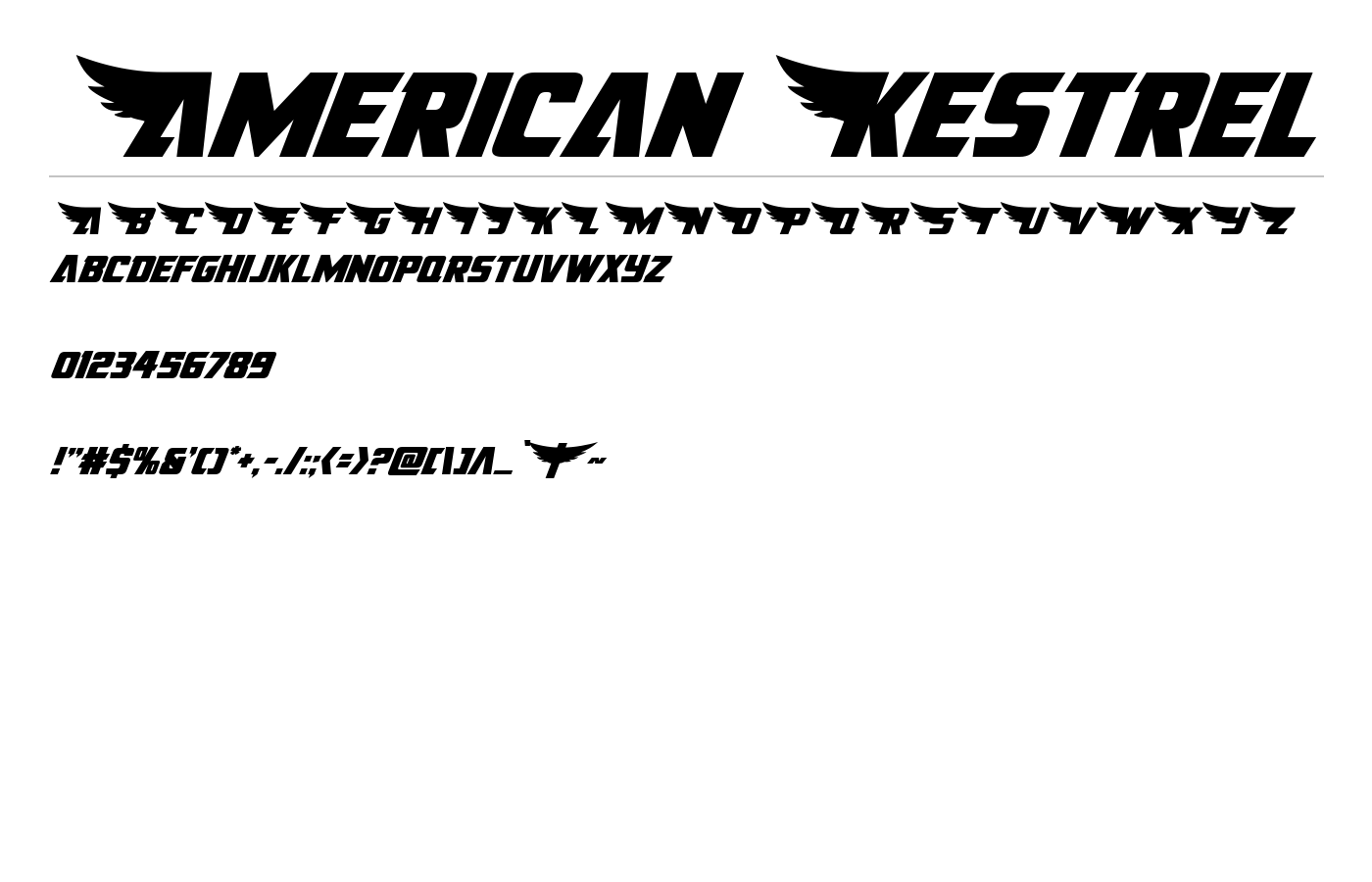
American Kestrel is a bold, condensed sans serif font with a strong, dynamic presence. Its sharp, angular letterforms and italic slant give it a fast, energetic feel, enhanced by unique wing-like details on some characters that evoke motion and power. This font is perfect for branding, sports logos, and headlines that need a fearless, modern edge with a touch of personality.
American Kestrel Font
About American Kestrel Font